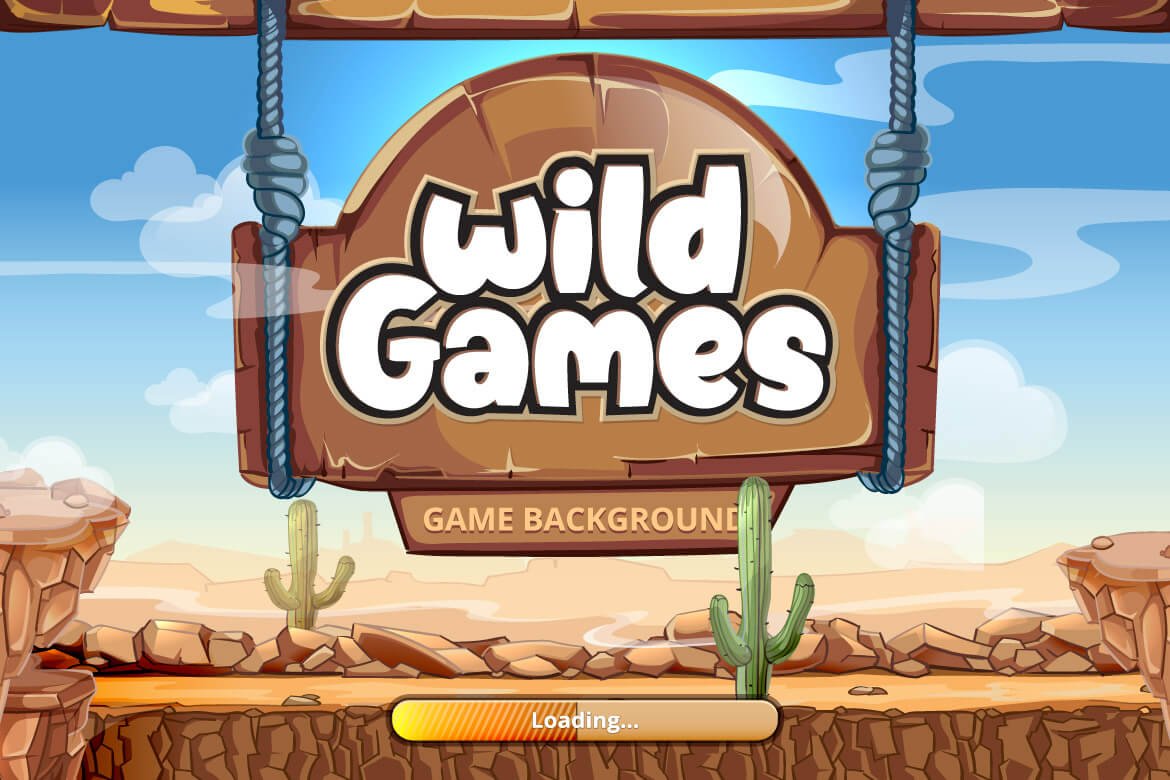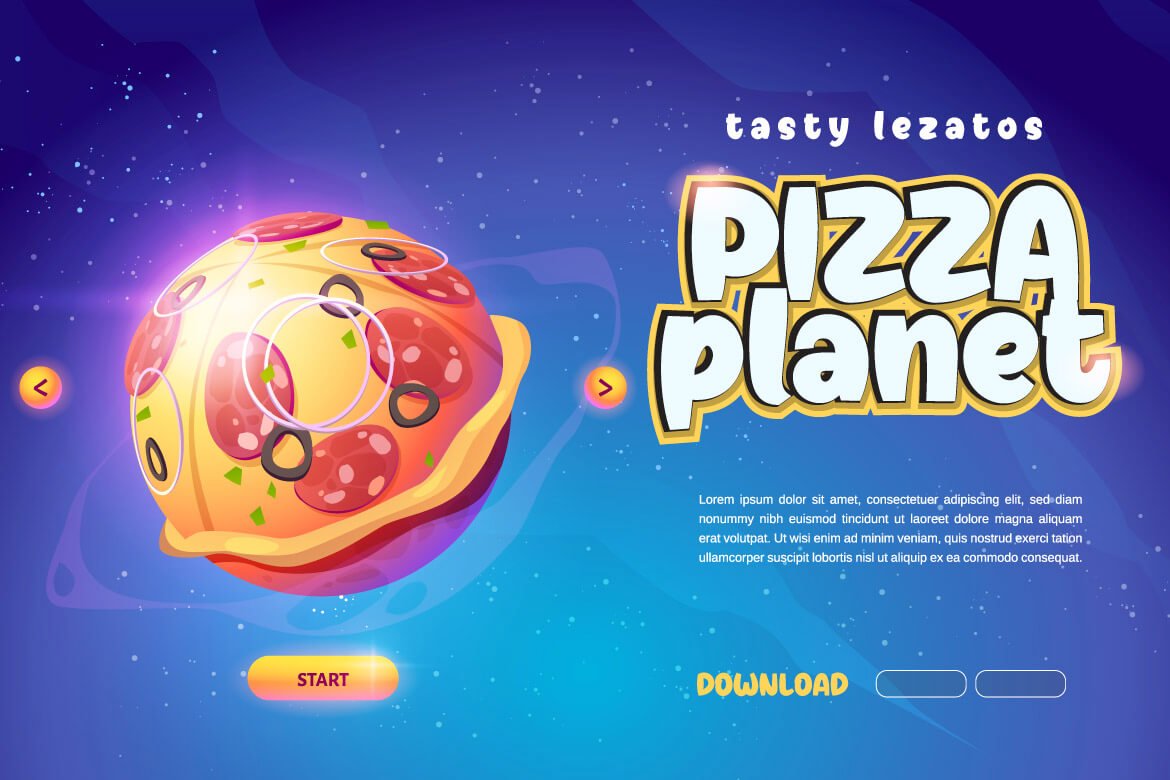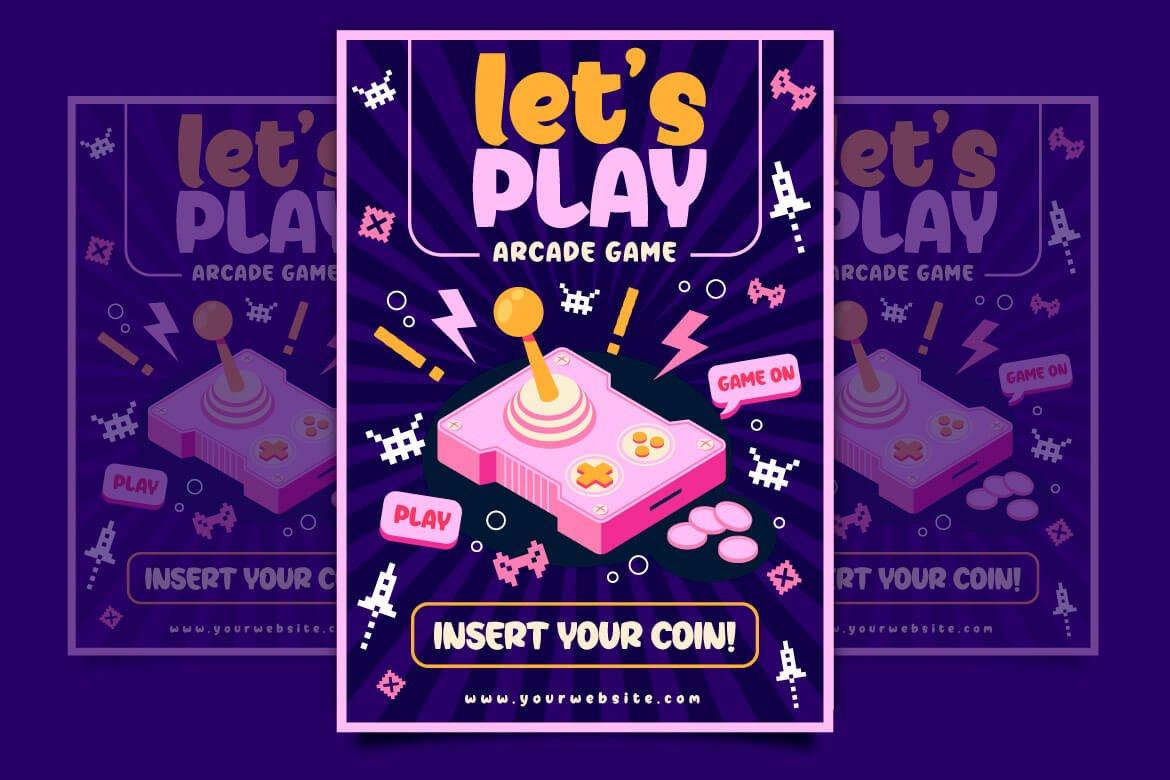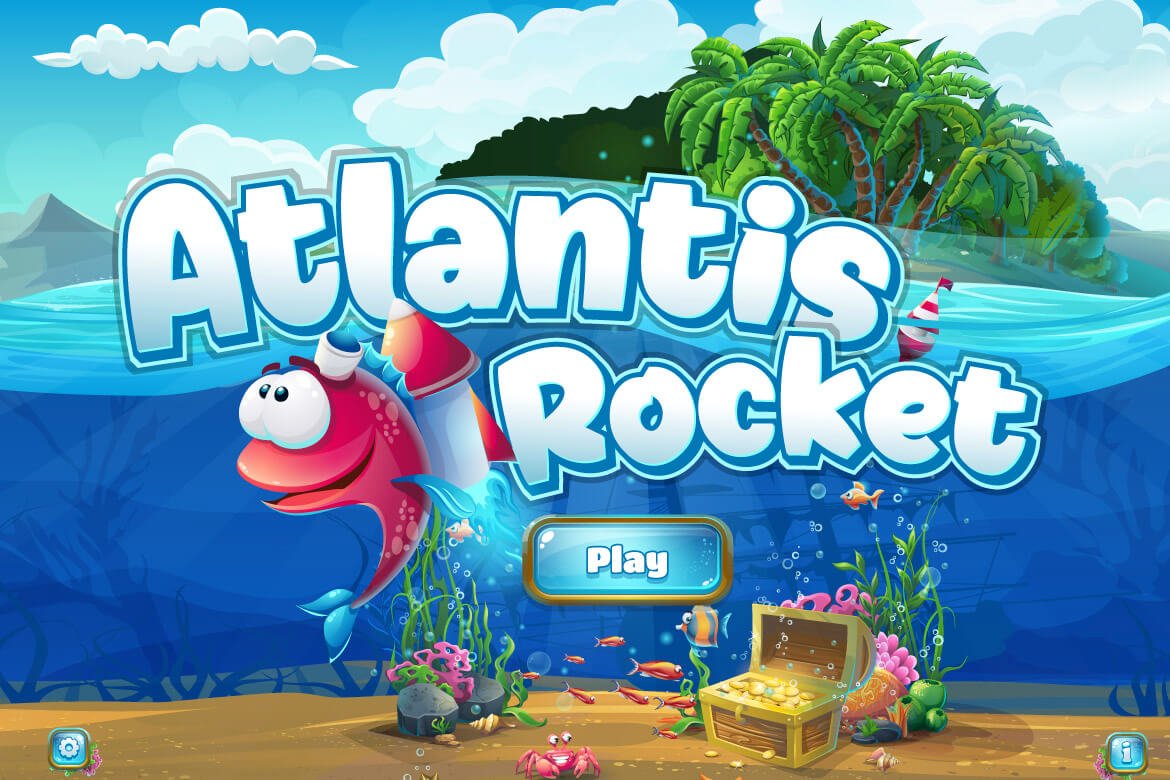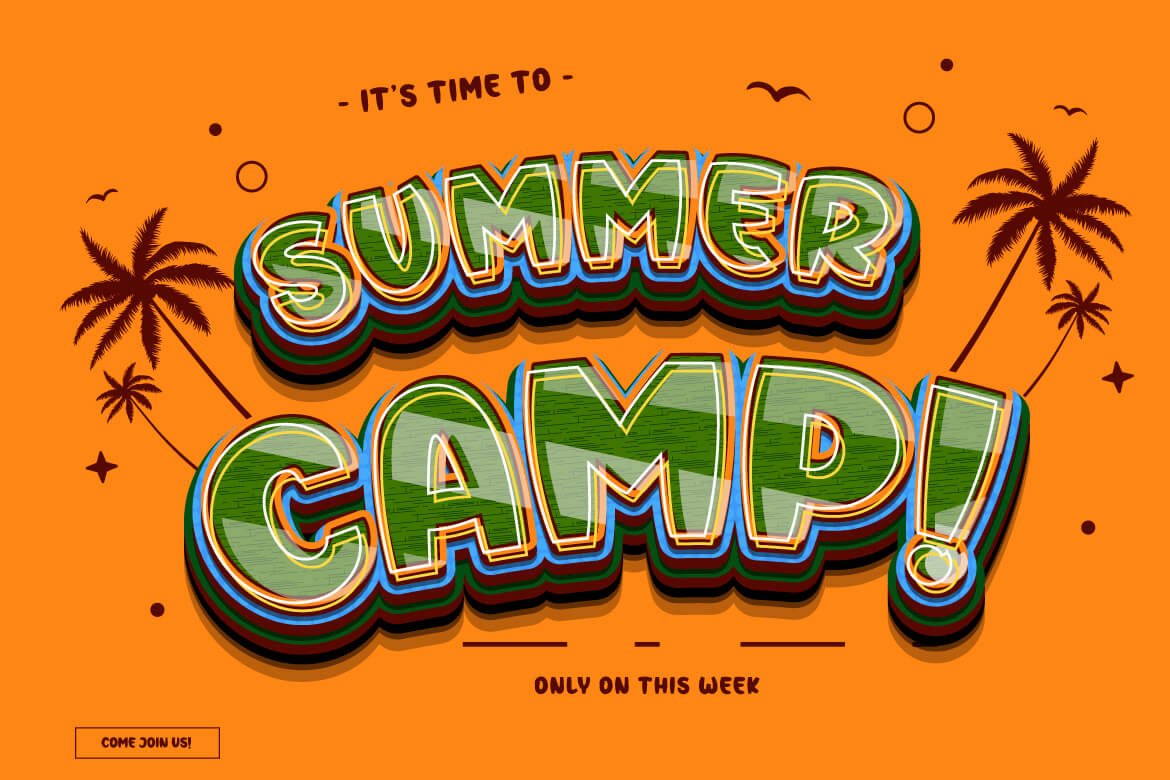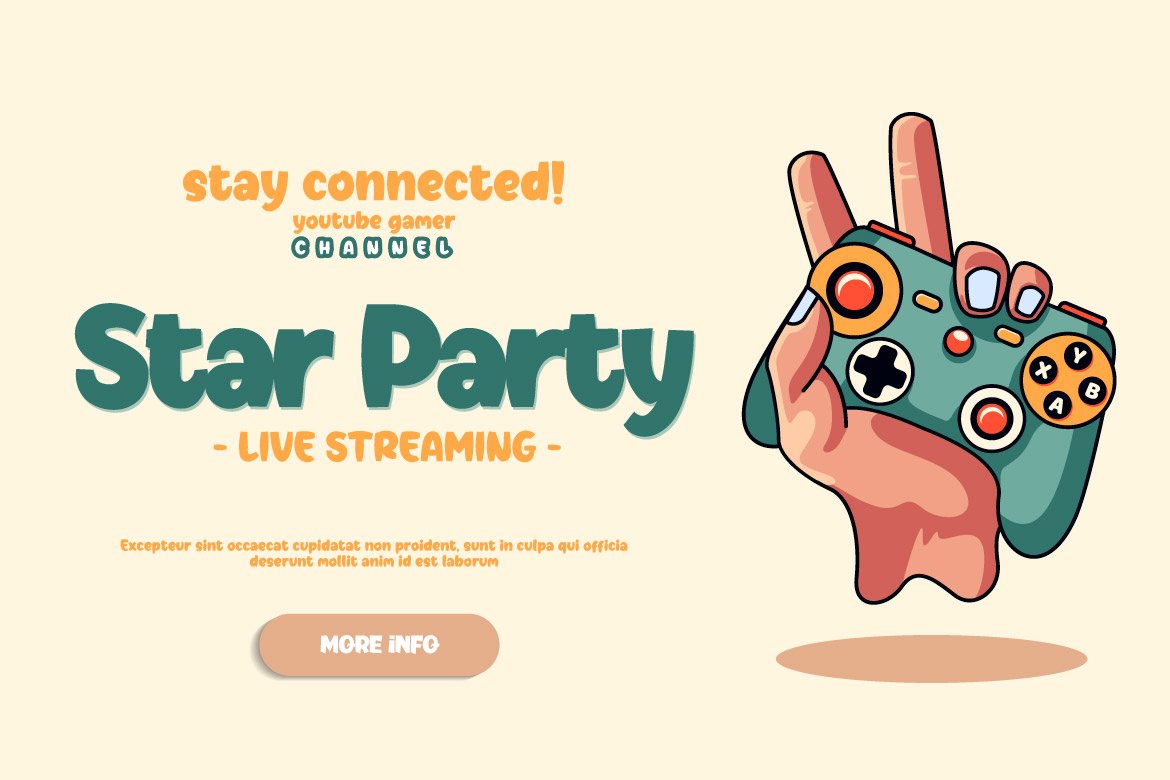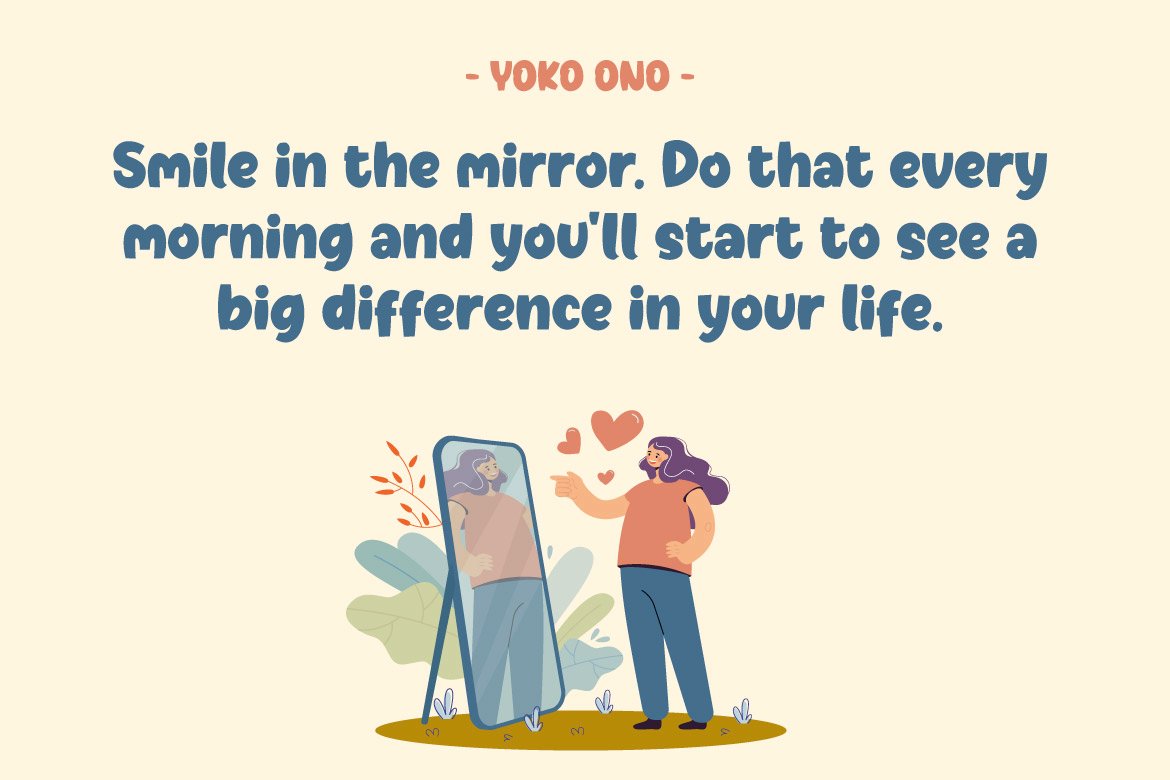
Star Player
The typeface Star Player was created with a powerful and bold idea in mind.
Your project will become instantly unique, gorgeous, elegant, and strong as a result of adopting this typeface.
Because of its elegant and flexible shape, this font is perfect for use as a title or sentence text; everything will seem lovely and neat, and it will, of course, remain clear and strong.
This font is perfect for games, sporting events, branding, banners, posters, movie titles, book titles, quotes, logotypes, and more.
of course, your various design projects will be perfect and extraordinary if you use this font because this font is equipped with a complimentary font family, both for titles and subtitles and sentence text, start using our fonts for your amazing projects.